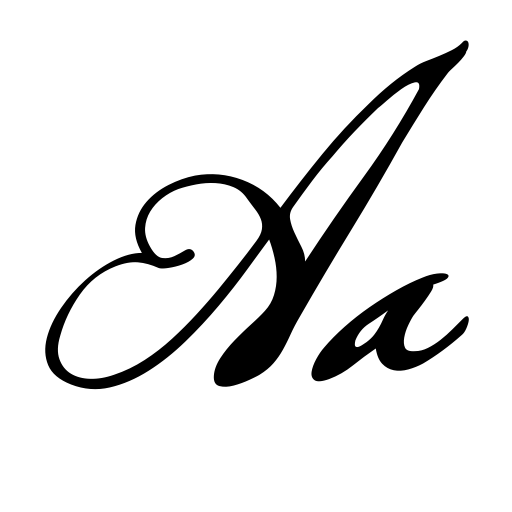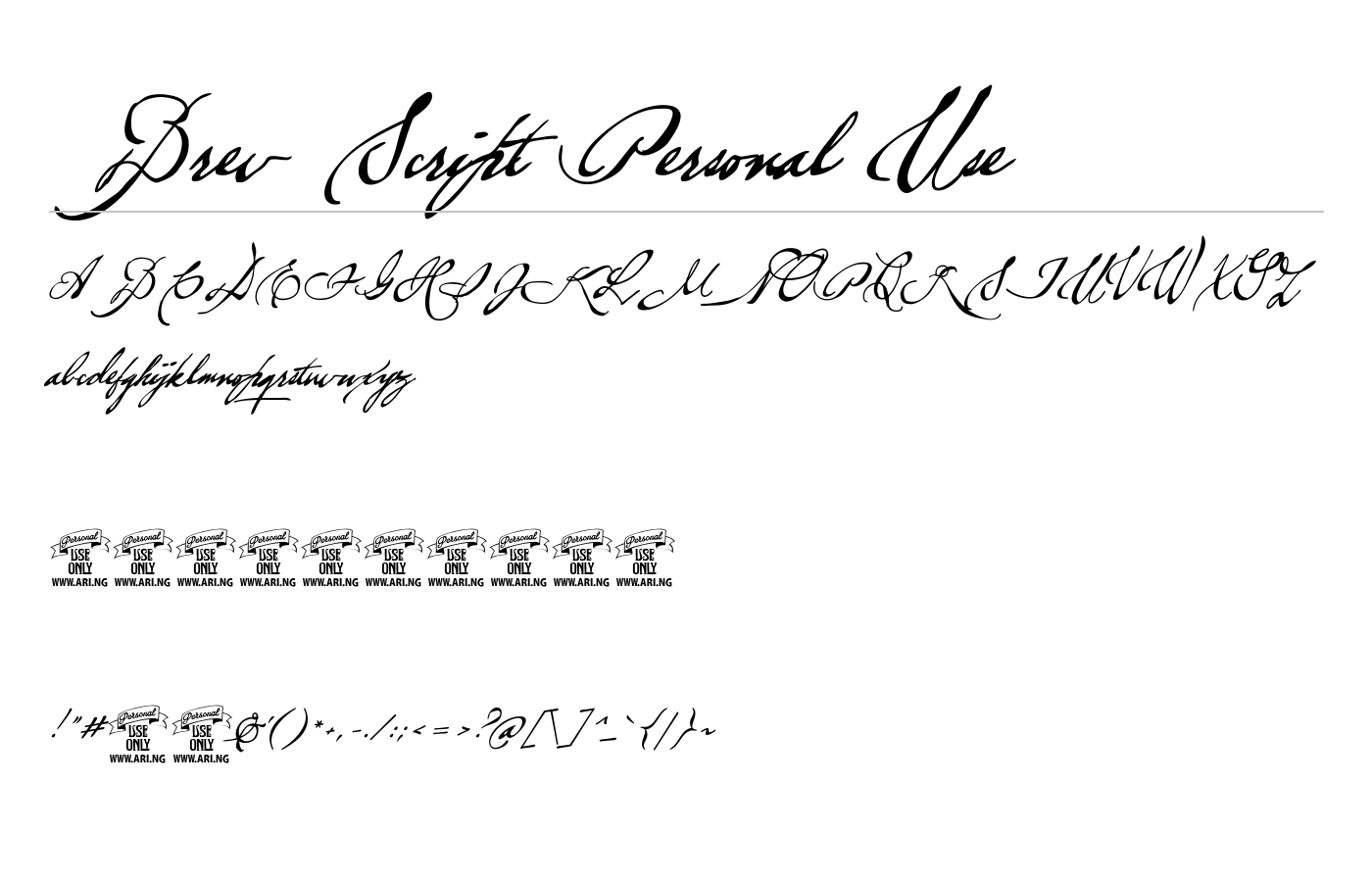
Brev Script Personal Use Font is an elegant, cursive script with delicate, flowing strokes that mimic authentic handwritten calligraphy. Its fine, light lines and sophisticated flourishes give it a classic, refined feel, making it perfect for invitations, branding, and any design that seeks a personal, graceful touch. This font shines in decorative uses where a sense of luxury and individuality is desired.
Brev Script Personal Use Font
About Brev Script Personal Use Font
| Font family | Brev Script Personal Use Font |
| Designer | MÂns Greb‰ck |